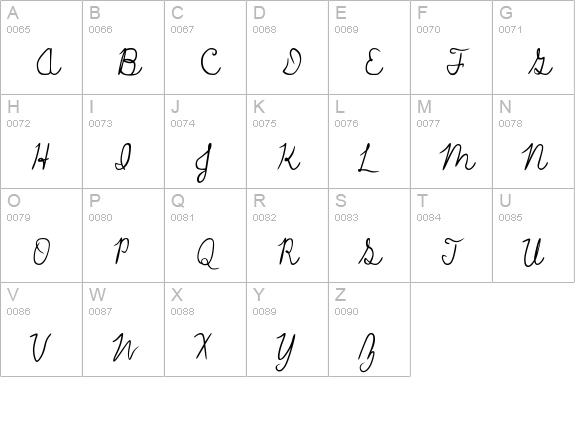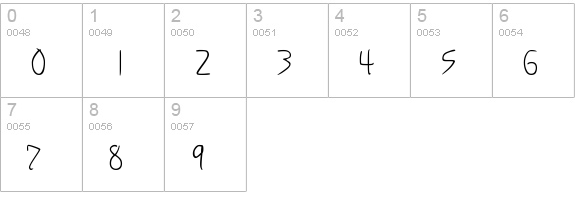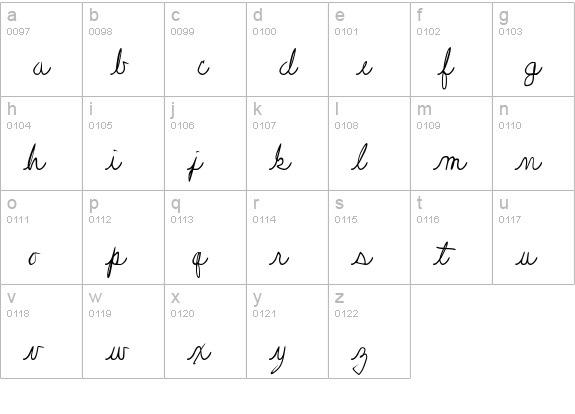
Farewell Font Details
Farewell font is a stunning typeface that exudes elegance and sophistication. Its sleek and modern design makes it perfect for a wide range of design projects, from branding to invitations to social media graphics. The clean lines and graceful curves of Farewell font give any text a refined and polished look. But the best part? Farewell font is completely free to download at FontsMarket.com! This means you can add this exquisite font to your collection without spending a dime. Whether you're a professional designer looking to elevate your projects or a hobbyist looking to spruce up your creations, Farewell font is the perfect choice. Don't miss out on this fantastic opportunity to enhance your designs with this beautiful and versatile typeface. Download Farewell font today and let your creativity shine!